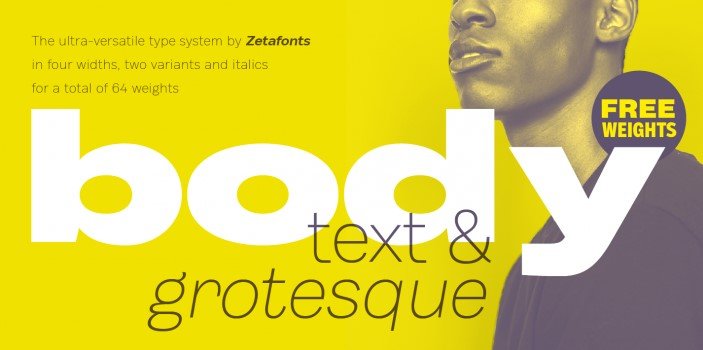
Hello dressmaker! The following is a typical circle of relatives of sixty-four fonts. Introducing Body Font and frame gruesome. Conceived as a present-day alternative to modernist superfamilies like Univers or Helvetica.
Regardless, this amulhed general fashion can paintings inside the sort of adventures, consisting of printing or display considering that that first-rate like gotham book literary style has 236 characters that can be used for diverse endeavors.
However, these weights also can make a superb combination with other sans serif and serif fonts. So, in all count on the way to be a pleasant choice.
Ts ambitious weight has slightly ambitious as compared to the other weights. And the spacing among the letters is also bigger than the others. In this example, that first-rate font can match in all topics.
So the ones aid you to vehicle-mystically swap out letter that is similar to logo font devices with exchange types. Allowing you to virtually create your design whilst making the visible diverse fashion that gives you the novel seem of custom-designed lettering.
This splendid first-rate font that is mostly used in HTML and CSS has eight sure styles together with everyday, professional, stylistic, contextual, swashes, prospers, borders, and adorns. All of those patterns have top class fonts.